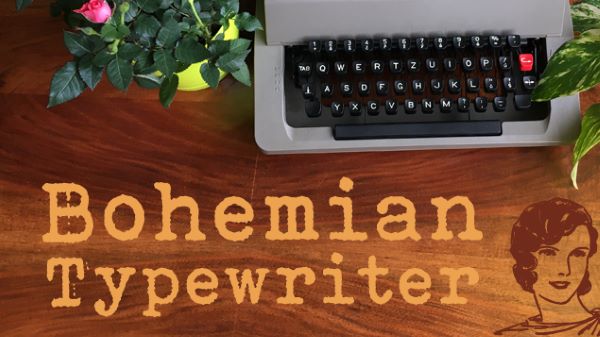
Bohemian Typewriter Font
Bohemian Typewriter by Lukas Krakora is a free typewriter font with the free-spirited, slightly improvisational character its name promises — its letterforms carrying the casual warmth of a machine used for creative work rather than bureaucratic correspondence. This typewriter font suits literary aesthetics, artistic branding, travel writing, indie publishing, and any project that wants its typography to feel culturally curious and romantically analog. With 699,000+ downloads it has earned lasting popularity. Free for personal use; commercial via typewriterfonts.net.